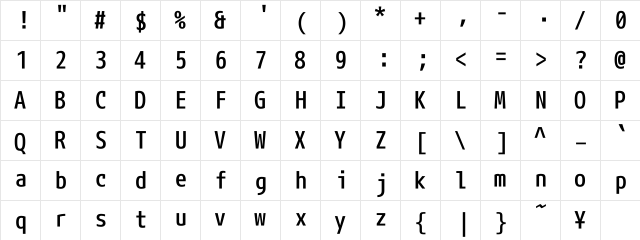
M+ 1mn medium
Design Context for M+ 1mn Typeface
M+ 1mn is a composed and adaptable typeface that performs quietly and consistently across a wide range of design contexts.